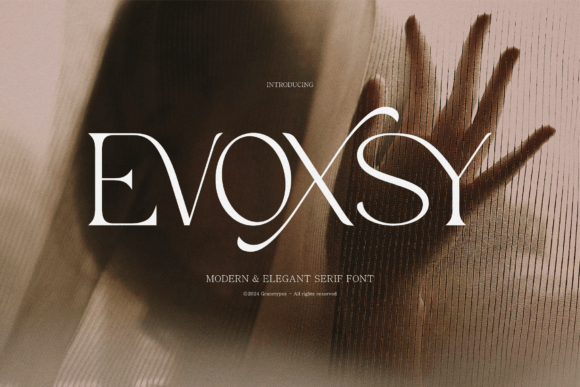
Evoxsy Font: Elevate Your Designs with Timeless Elegance and Contemporary Sophistication
In the world of typography, fonts play a crucial role in conveying the tone and personality of a brand or design. For those seeking a typeface that embodies luxury, sophistication, and refinement, Evoxsy Font is an exceptional choice. This article will delve into the world of Evoxsy, exploring its features, applications, and the benefits it offers to designers and brands looking to elevate their visual identity.
Introduction to Evoxsy Font
Evoxsy is a meticulously crafted serif font that strikes a perfect balance between timeless elegance and contemporary sophistication. Its design is characterized by delicate curves and sharp contrasts, making it an ideal choice for high-end branding, editorial design, wedding invitations, and fashion projects. With Evoxsy, designers can create visually stunning materials that exude luxury and refinement.
Key Features of Evoxsy Font
Evoxsy boasts several key features that set it apart from other serif fonts:
- Delicate Curves: Evoxsy’s curves are carefully designed to add a touch of elegance and sophistication to any design.
- Sharp Contrasts: The font’s sharp contrasts between thick and thin lines create a sense of refinement and luxury.
- Timeless Elegance: Evoxsy’s classic design ensures that it remains relevant and stylish, even in modern designs.
- Contemporary Sophistication: The font’s clean lines and precise craftsmanship give it a contemporary feel that’s perfect for modern brands.
Applications of Evoxsy Font
Evoxsy’s versatility makes it suitable for a wide range of applications, including:
- High-End Branding: Evoxsy is perfect for luxury brands looking to create a sophisticated and refined visual identity.
- Editorial Design: The font’s classic design makes it ideal for editorial projects, such as magazines, newspapers, and books.
- Wedding Invitations: Evoxsy’s elegant design makes it a popular choice for wedding invitations and other formal events.
- Fashion Projects: The font’s luxurious feel makes it perfect for fashion brands, lookbooks, and editorial spreads.
Benefits of Using Evoxsy Font
By incorporating Evoxsy into your designs, you can enjoy several benefits:
- Luxurious Aesthetic: Evoxsy helps create a luxurious and sophisticated visual identity that elevates your brand or design.
- Timeless Appeal: The font’s classic design ensures that your materials remain stylish and relevant for years to come.
- Versatility: Evoxsy can be used in a wide range of applications, from high-end branding to editorial design.
- Attention to Detail: The font’s precise craftsmanship and attention to detail make it perfect for designs that require a high level of sophistication.
Tips for Using Evoxsy Font Effectively
To get the most out of Evoxsy, consider the following tips:
- Pair with Neutral Colors: Evoxsy looks stunning when paired with neutral colors, such as black, white, and gray.
- Experiment with Font Sizes: The font’s versatility allows it to be used at various font sizes, from large headlines to smaller body text.
- Add Decorative Elements: Consider adding decorative elements, such as illustrations or graphics, to enhance the overall design.
- Pay Attention to Kerning: Make sure to adjust the kerning to ensure that the text is evenly spaced and visually appealing.
Evoxsy Font is a refined and stylish serif font that offers a unique blend of timeless elegance and contemporary sophistication. Its delicate curves, sharp contrasts, and precise craftsmanship make it perfect for high-end branding, editorial design, wedding invitations, and fashion projects. By incorporating Evoxsy into your designs, you can create visually stunning materials that exude luxury and refinement. Whether you’re a designer or a brand looking to elevate your visual identity, Evoxsy is an exceptional choice.
FAQs about Evoxsy Font
- What is Evoxsy Font? Evoxsy is a refined and stylish serif font designed for high-end branding, editorial design, wedding invitations, and fashion projects.
- What are the key features of Evoxsy? Evoxsy features delicate curves, sharp contrasts, timeless elegance, and contemporary sophistication.
- What are the benefits of using Evoxsy? Evoxsy offers a luxurious aesthetic, timeless appeal, versatility, and attention to detail.